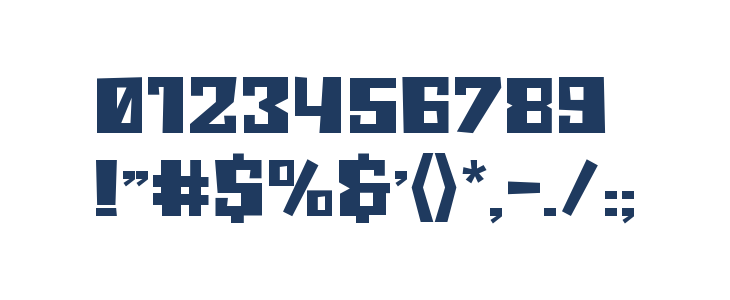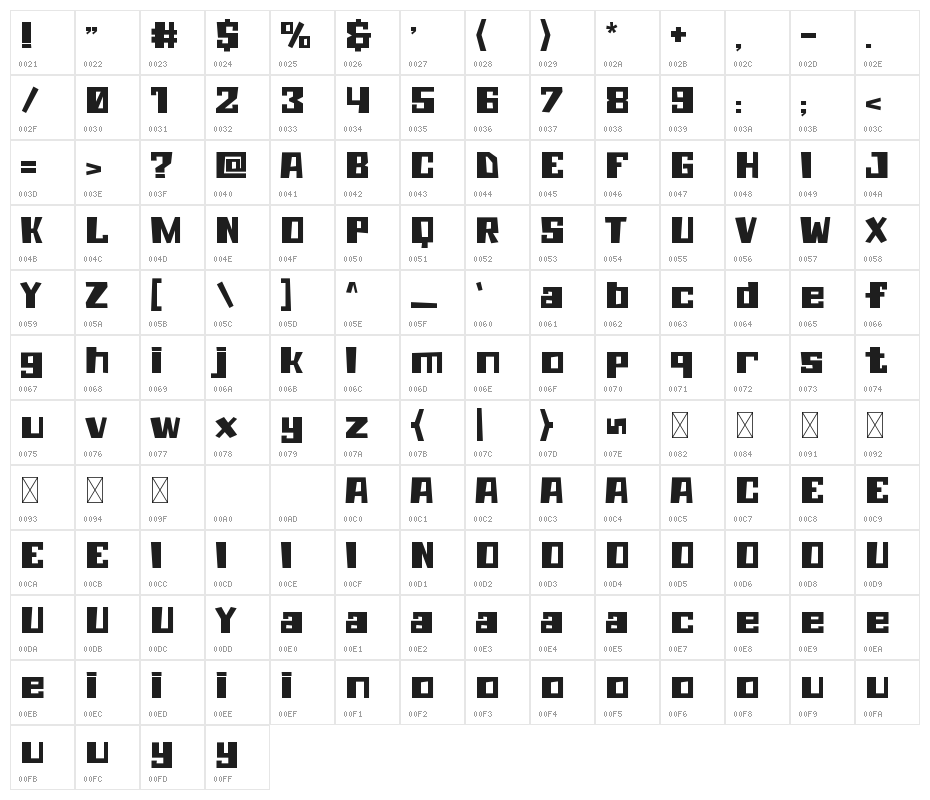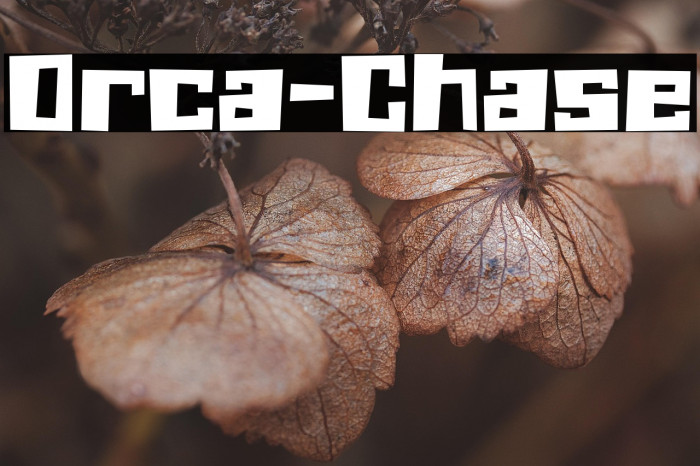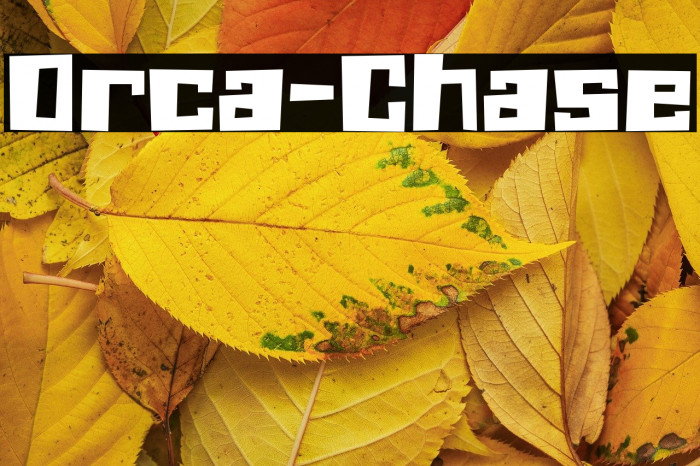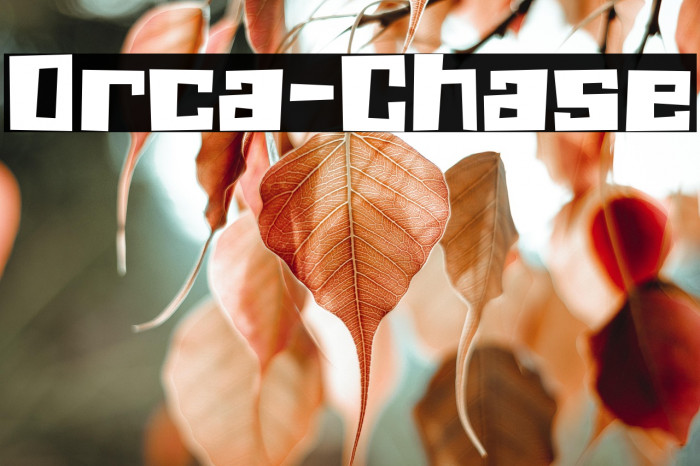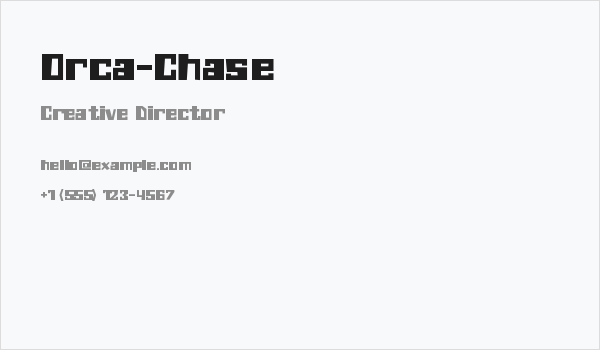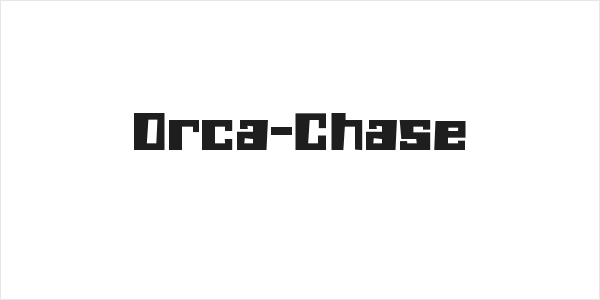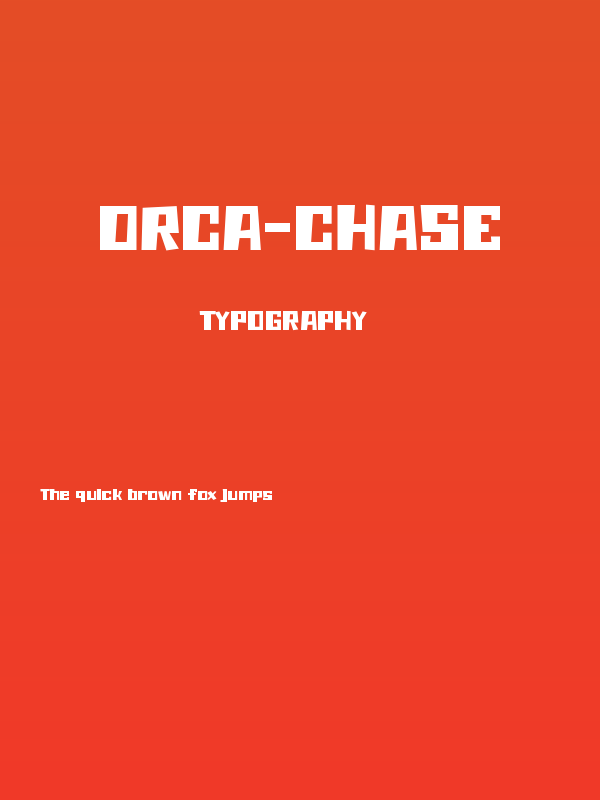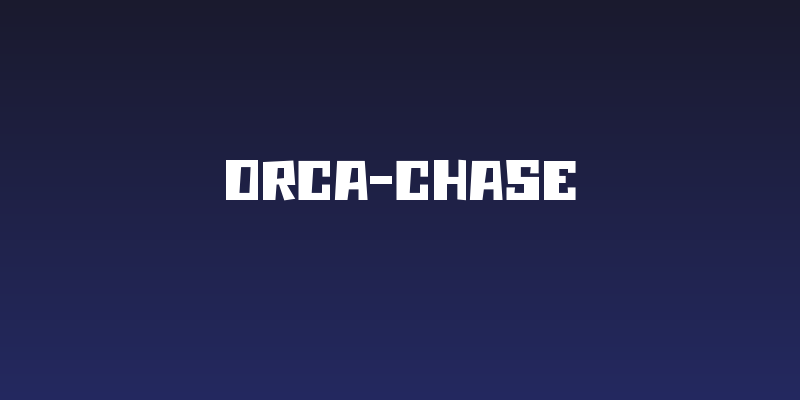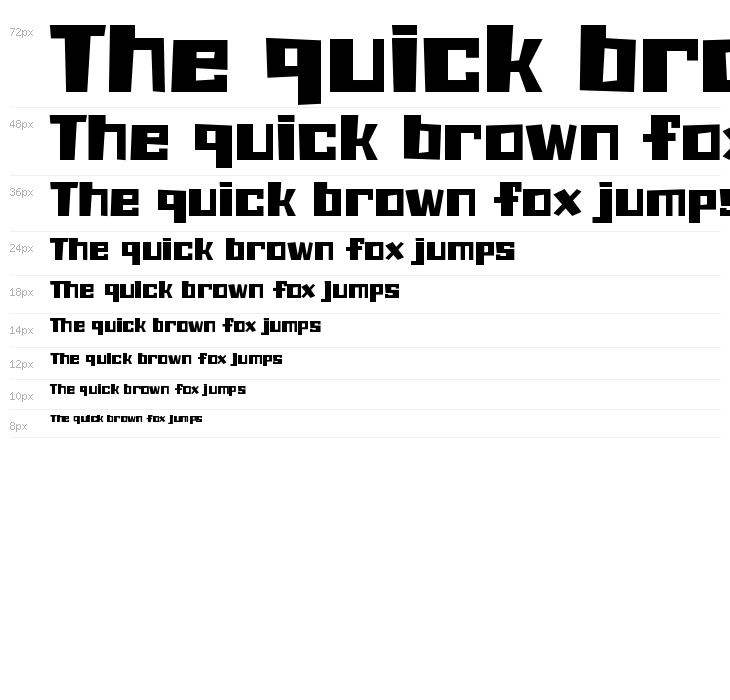
Orca-Chase Font
Orca-Chase Description
This font features a bold and dynamic style with a strong geometric influence. The characters are blocky and angular, giving a sense of movement and energy. Each letter is uniquely crafted with varying widths and angles, creating a visually striking appearance. The uppercase and lowercase letters maintain a consistent style, with the lowercase being slightly more compact. Numbers and special characters follow the same bold and angular design, ensuring uniformity across all glyphs. This font is ideal for projects that require a modern and edgy look, making it perfect for attention-grabbing headlines or logos.
| Proposed Projects | Ideal for branding, posters, headlines, and any design requiring a modern, edgy aesthetic. |